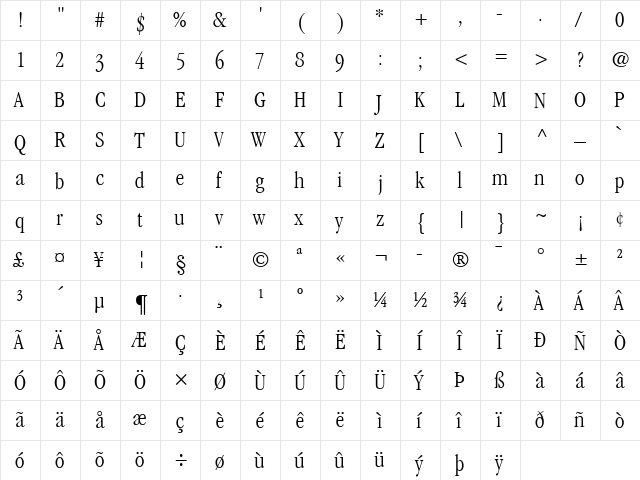
Garamond LT LightCondensed Regular Font Preview
Design Context for Garamond LT LightCondensed Typeface
Garamond LT LightCondensed is a composed and adaptable typeface that performs quietly and consistently across a wide range of design contexts. The delicate stroke weight brings airiness and refinement to layouts. The condensed width makes it efficient for tight spaces without sacrificing legibility.